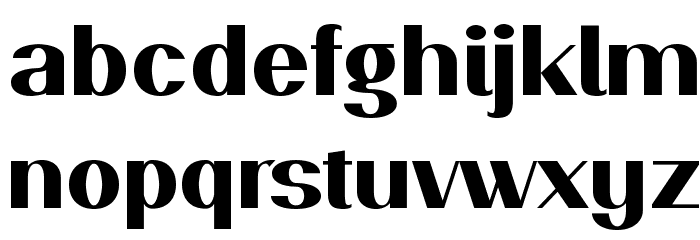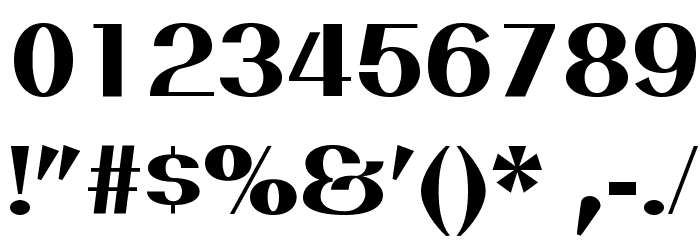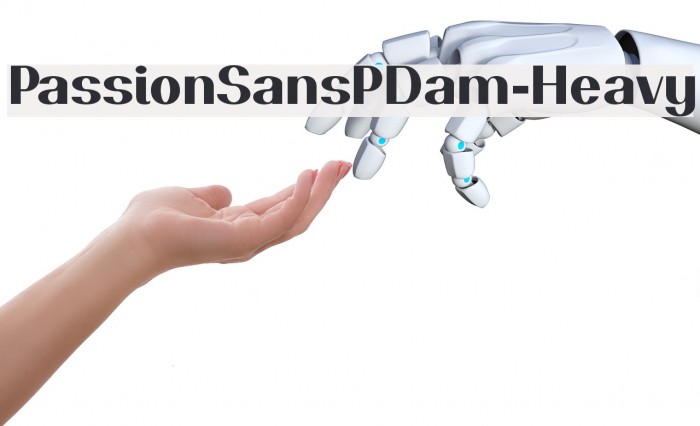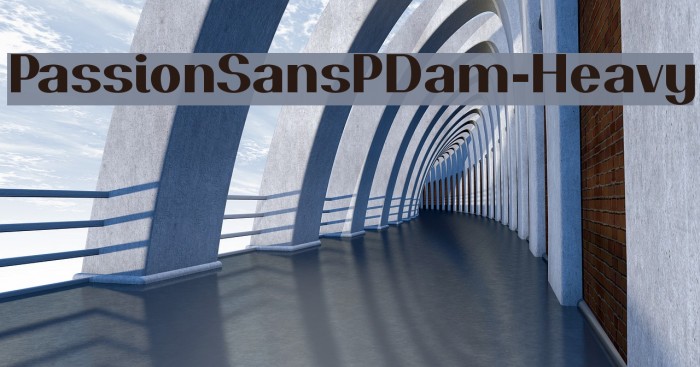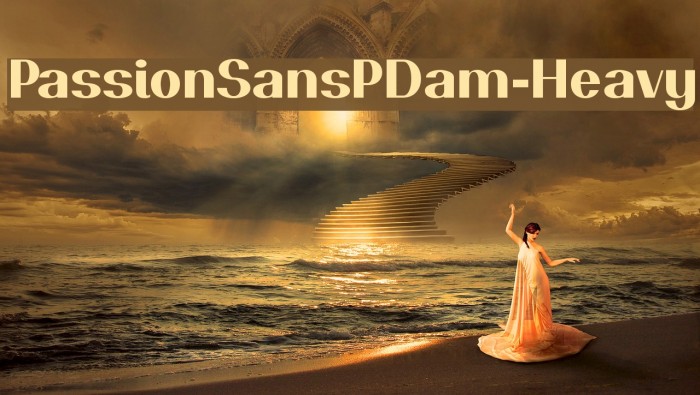
PassionSansPDam-Heavy Font
This font features a bold and striking design with high contrast between thick and thin strokes, giving it a dramatic and impactful appearance. The uppercase letters are particularly wide and commanding, while the lowercase letters maintain a consistent weight, ensuring readability. The numerals are robust and align well with the overall style, making them suitable for attention-grabbing displays. Special characters are designed with the same boldness, ensuring they stand out in any composition. The font's modern aesthetic is complemented by its clean lines and sharp edges, making it versatile for various design applications.
A bold, high-contrast font with a modern and impactful design.
- Proposed Projects: Ideal for branding, advertising, headlines, and any project requiring a strong visual impact.
- Use Case: Headlines, Logos, Advertising